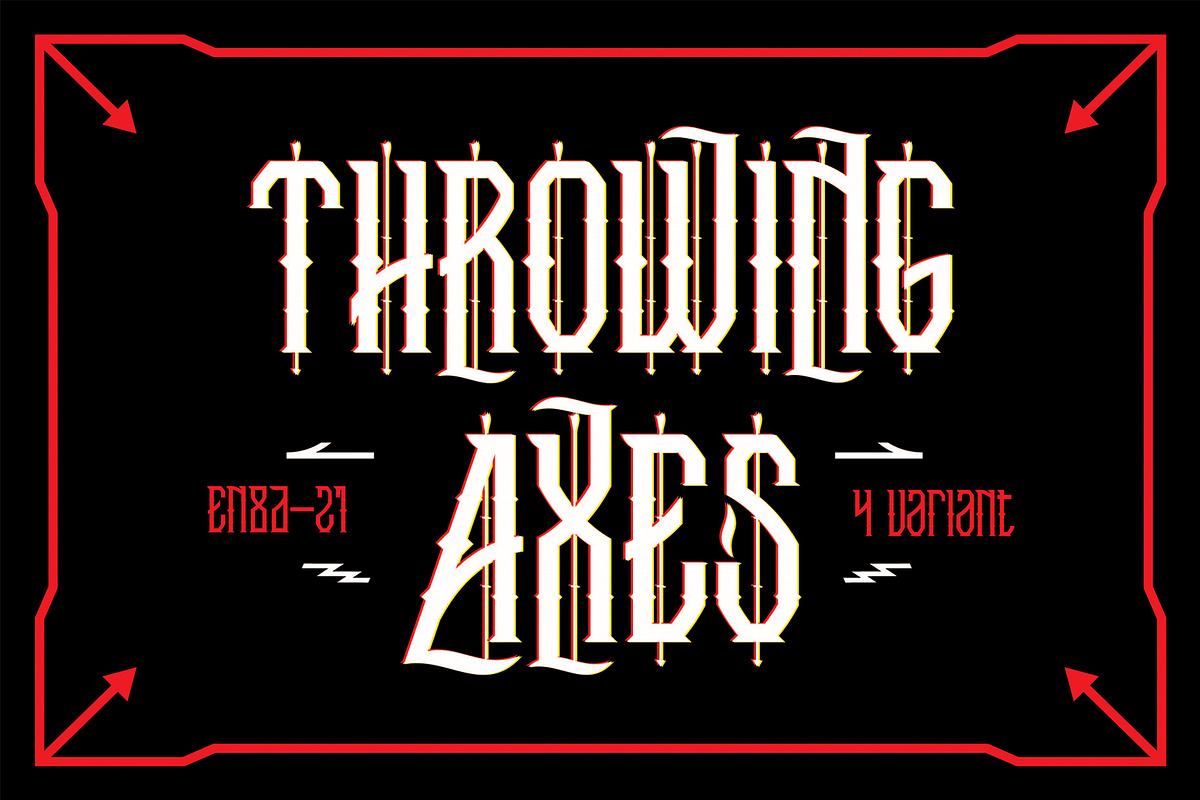
Trowing Axes Font Free Download is a strong, bold display typeface designed with an edgy, rugged feel. Its sharp lines and angular shapes evoke the imagery of toughness and resilience, making it perfect for action-packed projects, gaming designs, sports branding, and anything that requires a powerful, masculine look.
With its robust character and unique design, Trowing Axes brings energy and strength to your typography. Whether you’re designing for a sports team, a rugged brand, or a bold event poster, this font adds intensity and flair to your work.